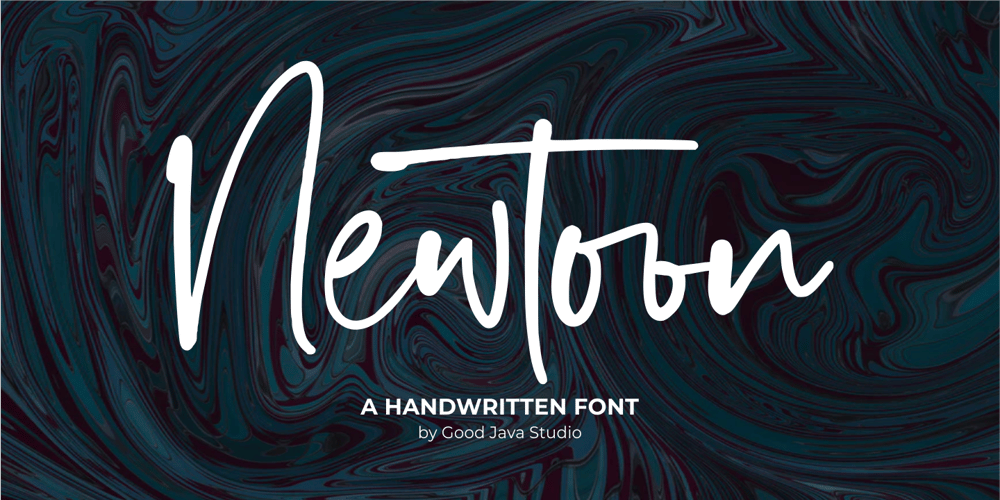
Newtoon Font Family was designed by Good Java and published by Good Java Studio. Newtoon contains 2 styles and family package options. Newtoon is a modern signature font. Perfect for logos, invitations, stationery, wedding designs, social media posts, advertisements, product packaging, product designs, labels, photography, watermarks, special events and more. This family includes: Newtoon Regular & Newtoon Italic.